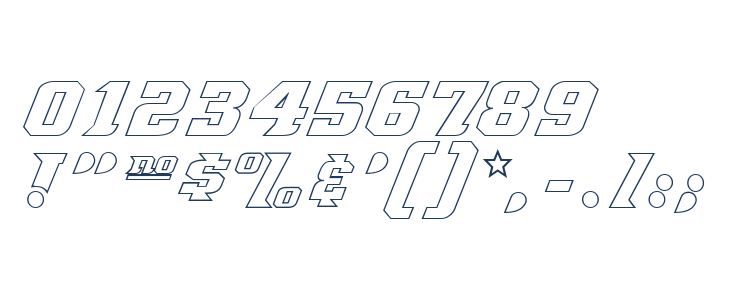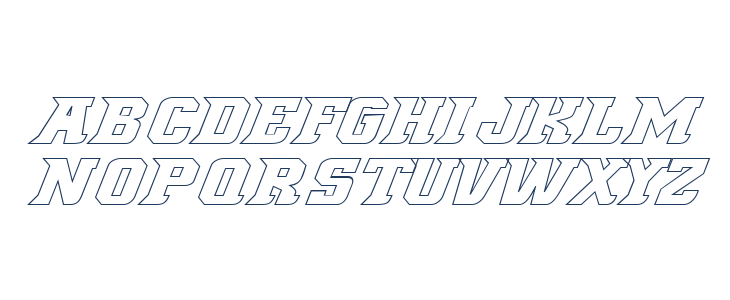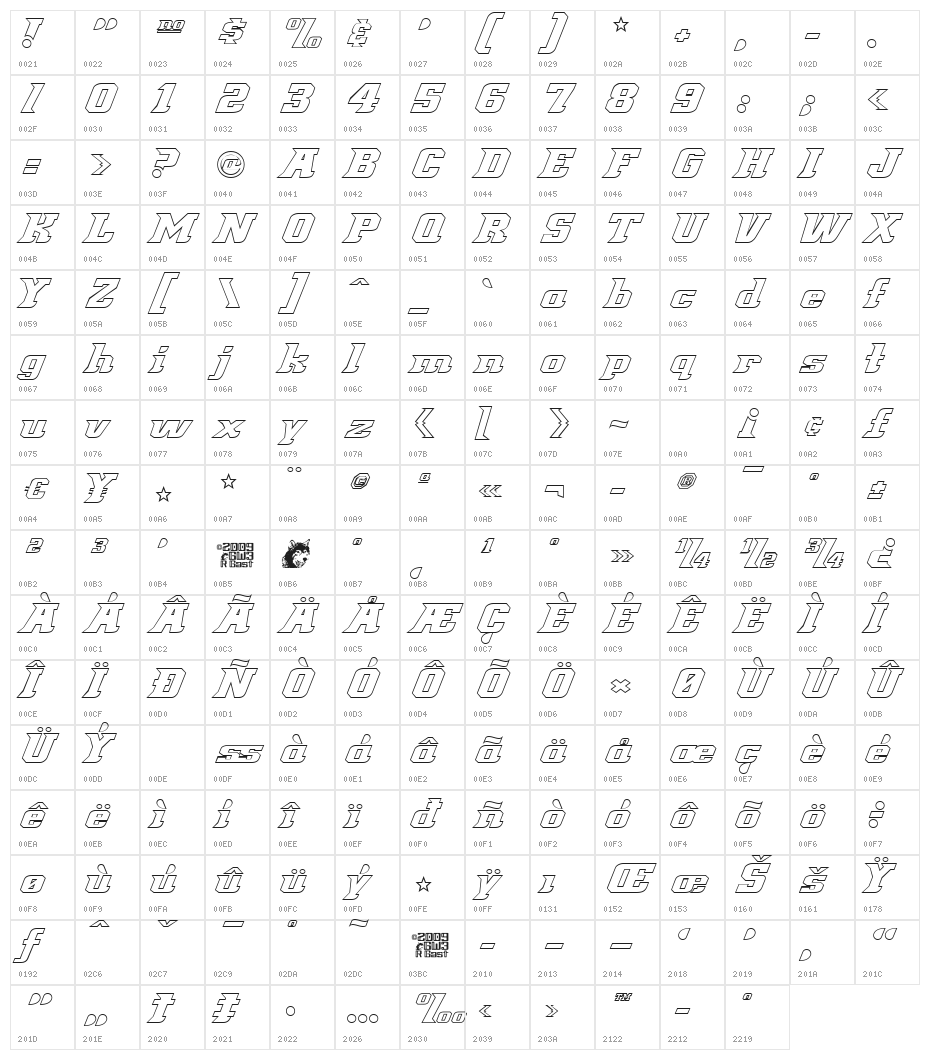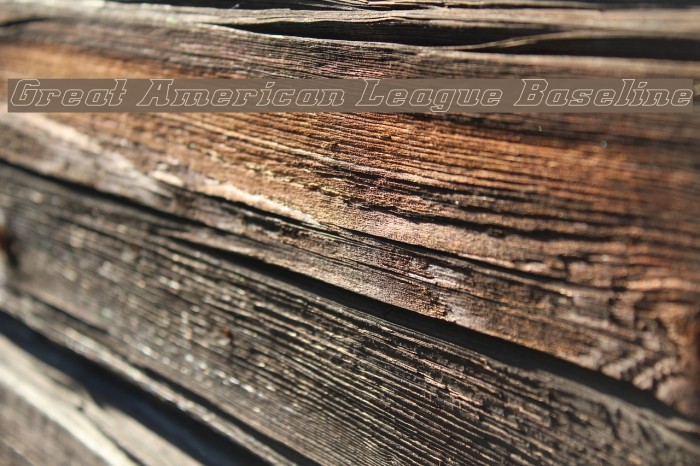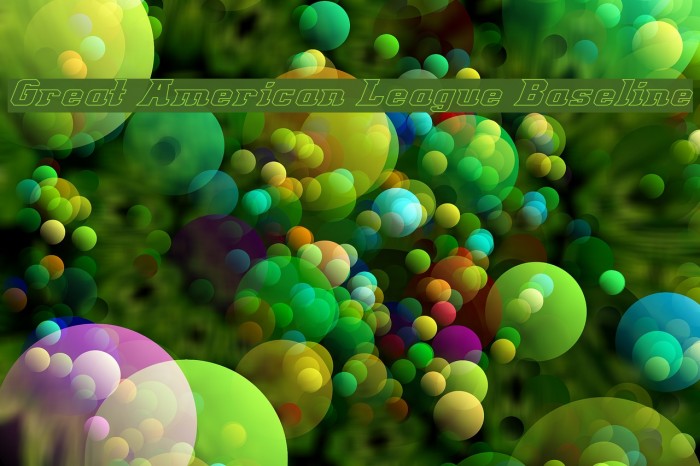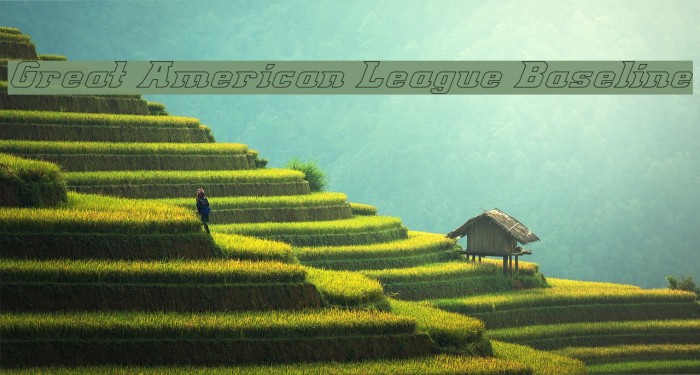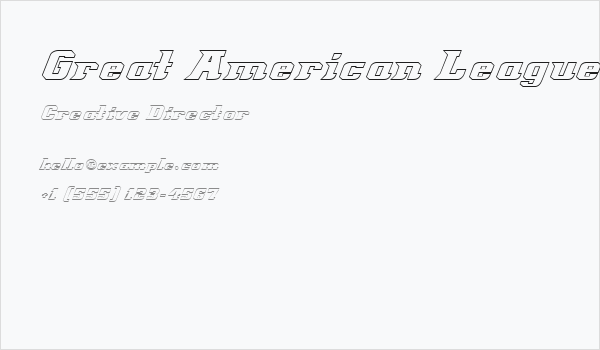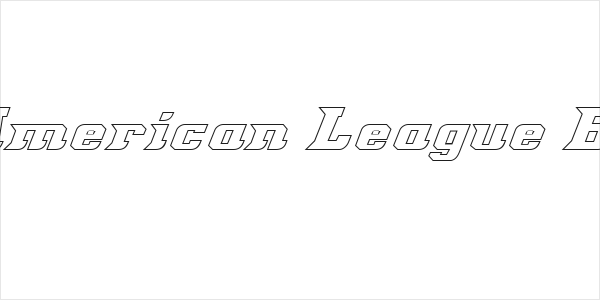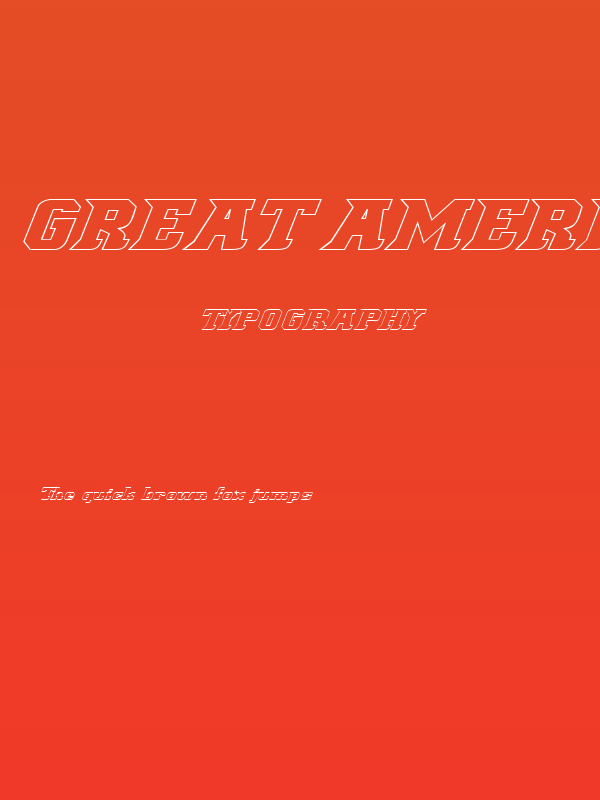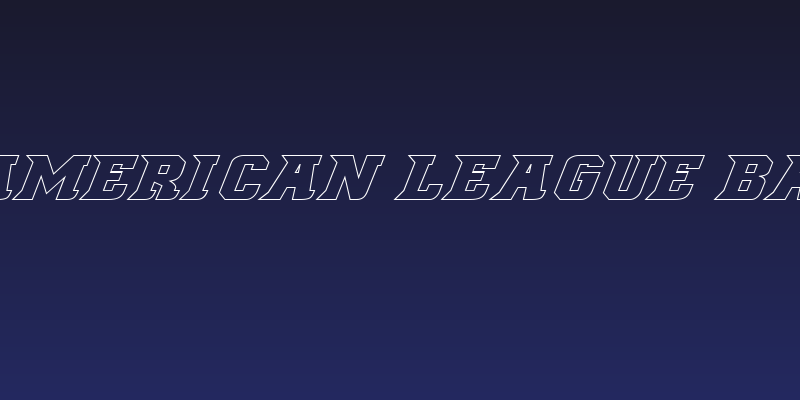
Great American League Baseline Font
Great American League Baseline Description
This font features a bold, dynamic style with a strong presence. The characters are outlined, giving them a three-dimensional effect that adds depth and interest. The uppercase letters are angular and slightly slanted, conveying a sense of motion and energy. The lowercase letters maintain this angularity, creating a cohesive look across the alphabet. Numbers and special characters follow the same design principles, ensuring consistency. This font's unique style makes it ideal for projects that require a bold statement.
| Proposed Projects | Ideal for sports branding, event posters, and dynamic logo designs. |